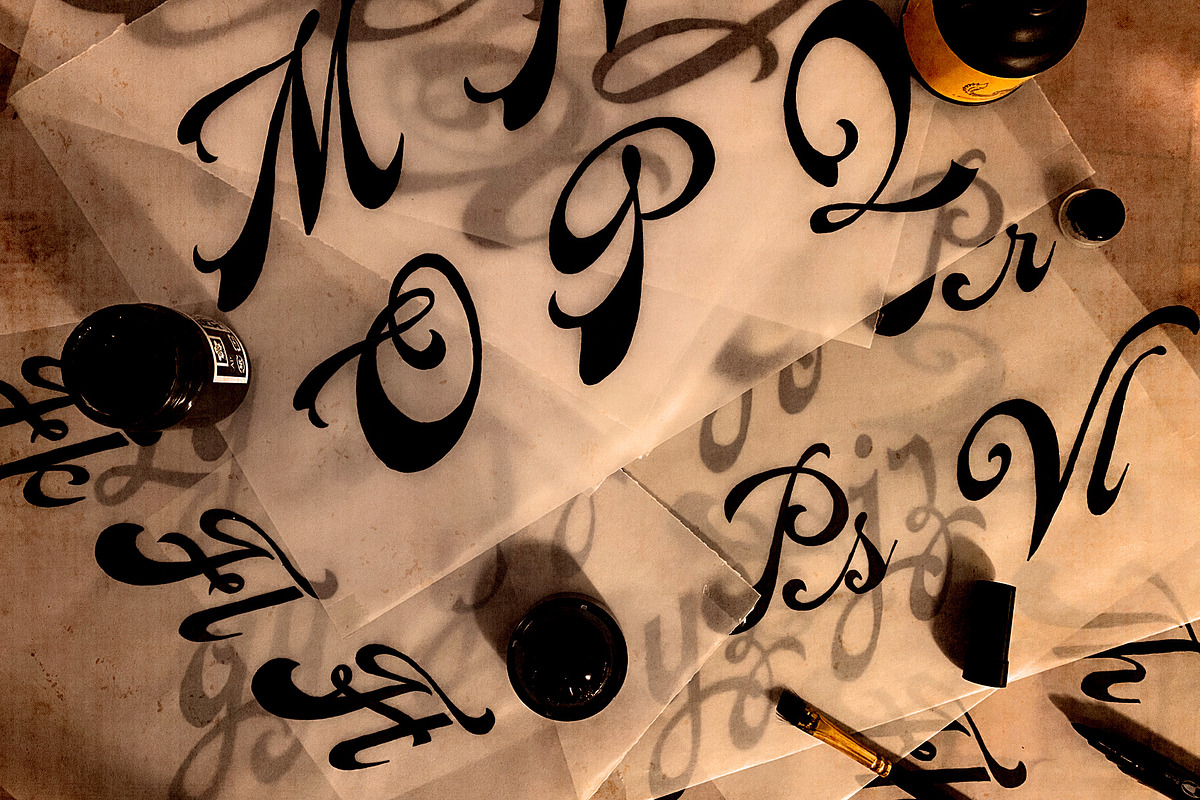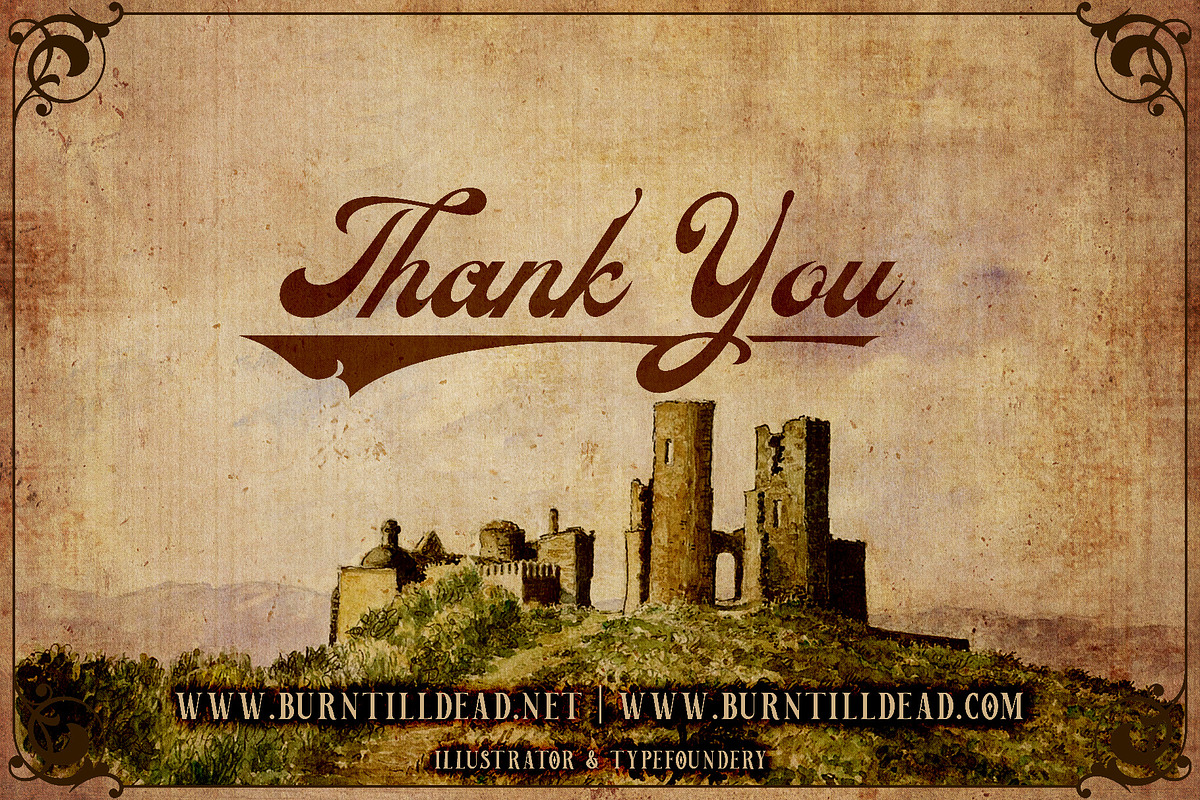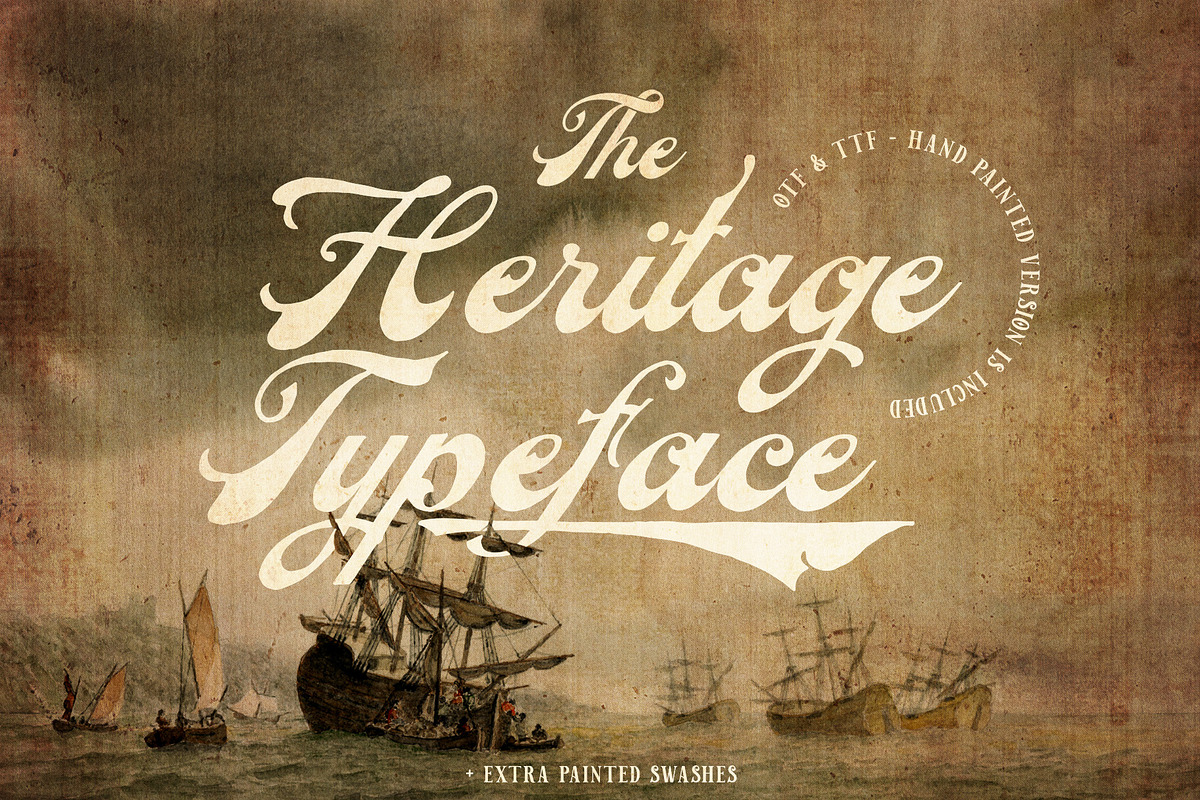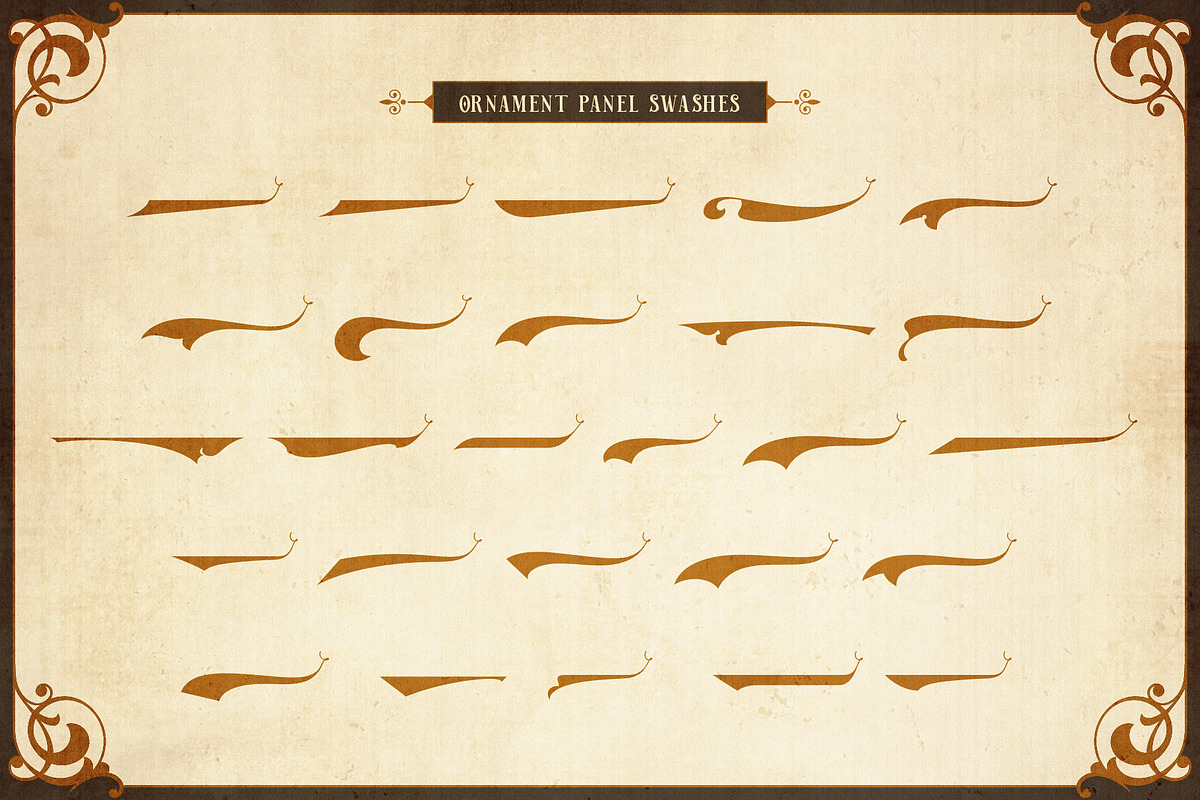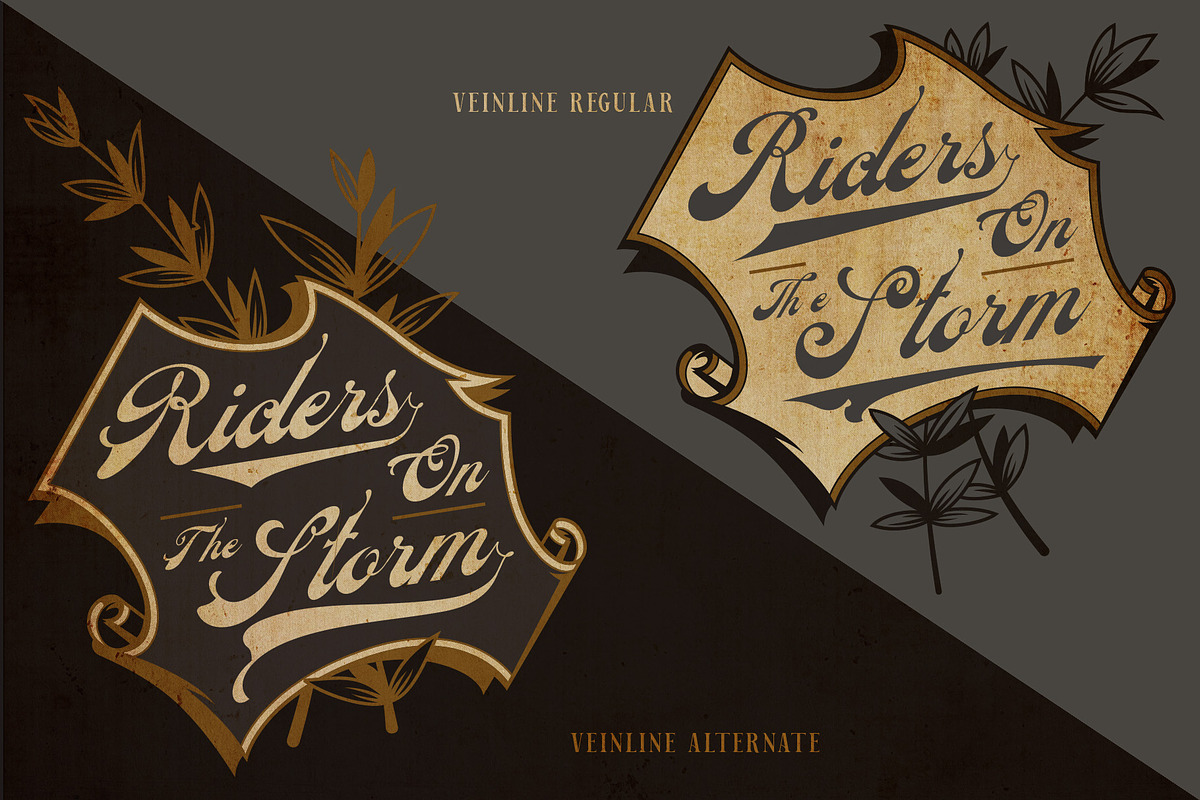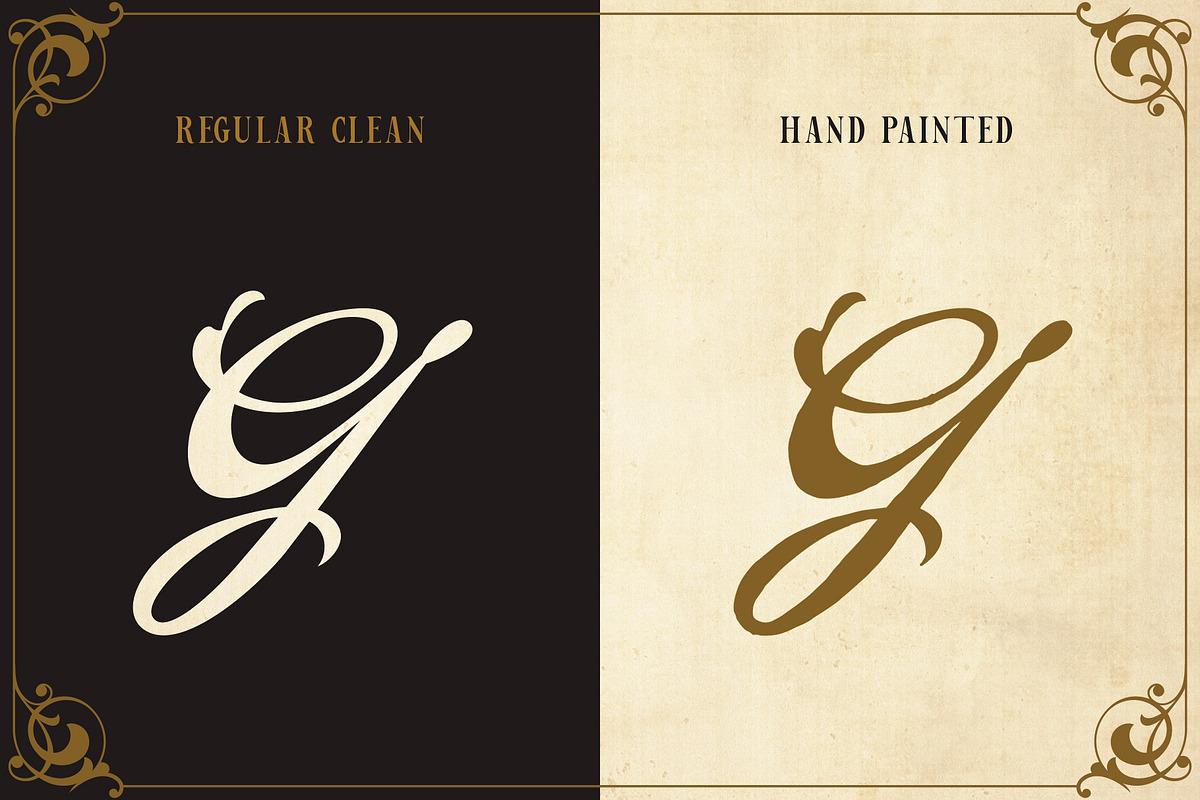
Veinline - Victorian Script
Veinline is a font & swashes ornament combination, inspired by old style ephemera letterhead print, beer label, certificate, billhead, lithographic design and sign store from the late 1800's and early 1900's.
Veinline is ready to use & make your design looks more dynamic. bouth came in 2 styles version; the regular clean & hand painted.
Swashes ornament make the combination from this font looks perfect to create label design, headline, logo types, signage, poster, certificate, all types of merchandise, book cover and many more application.